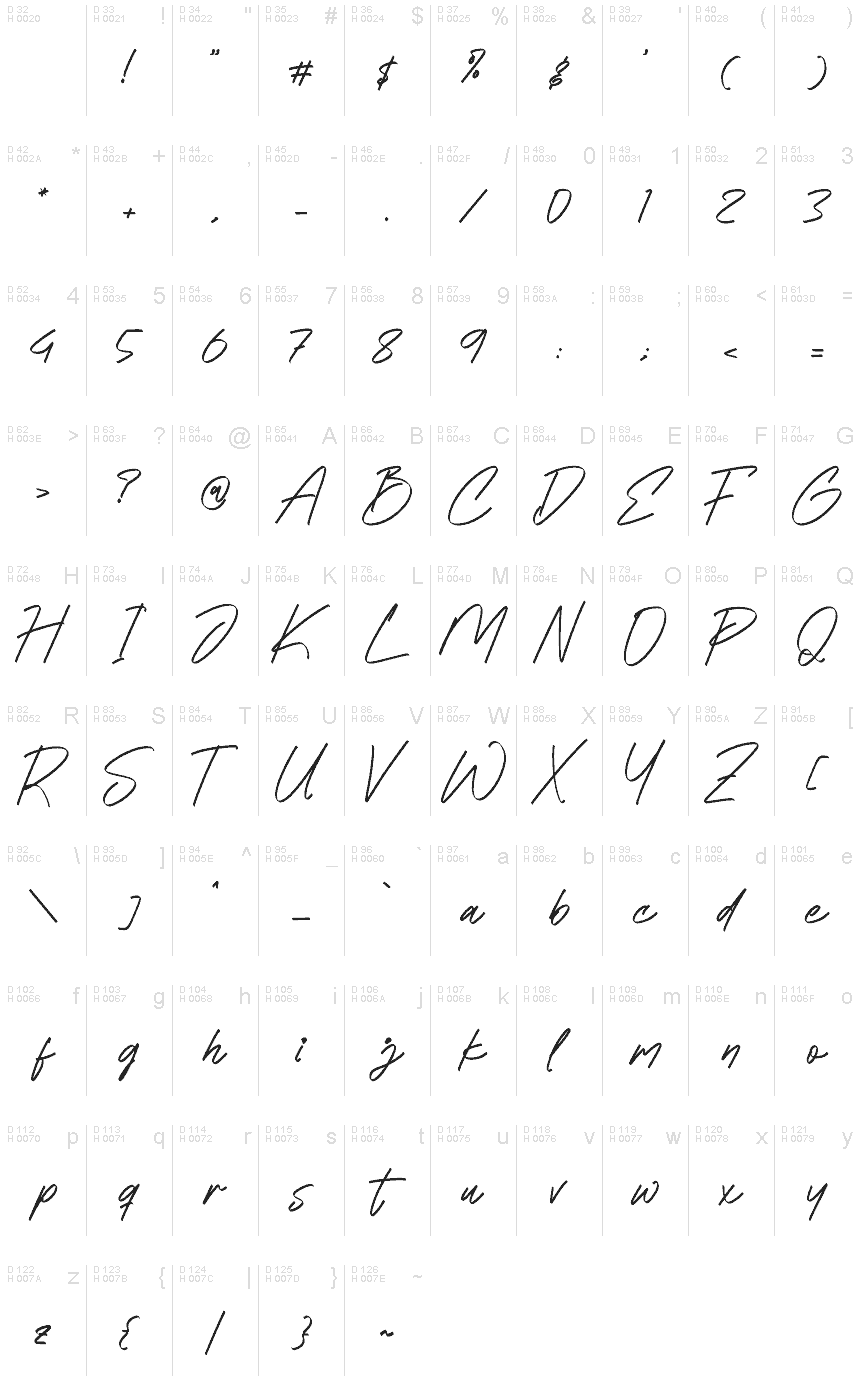
Cleodantto
Cleodantto font by Letterena Studios is a light handwritten free font that offers an elegant mix of modern aesthetics and casual charm. Its expressive style and personal touch make it extremely versatile as a text or display font. Effortlessly feminine, its lettering evokes sincere personality and subtle glamour.